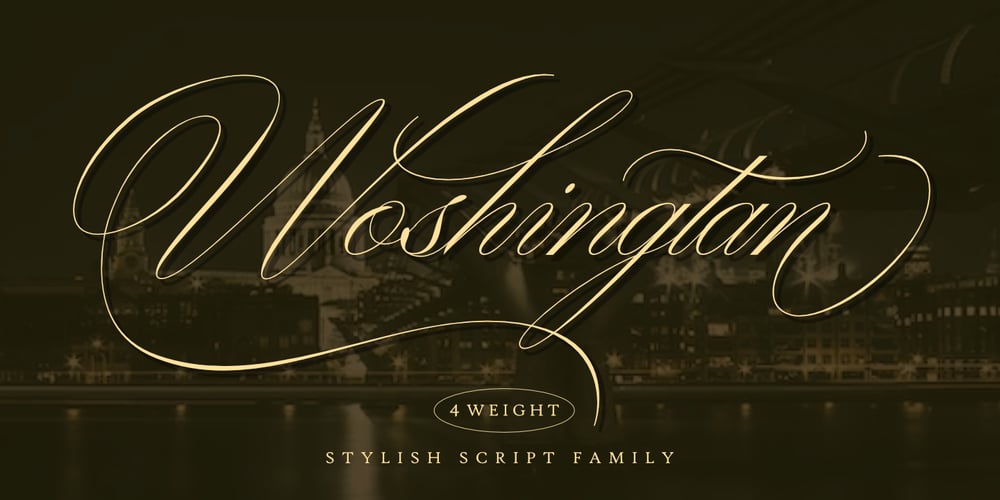
Woshingtan Font Family was designed by Saiful Anwar and published by Sealoung. Woshingtan contains 4 styles and family package options. Have you ever had a dream to write as a professional calligrapher? Penmanship or spencerian script? Now you have this unique opportunity to try the early American handwriting. Introducing Washington calligraphy scrpt. This font is calligraphy font with a classic style and a touch of elegance, inspired by the handwriting of Italian women and ancient manuscripts. Carefully designed to work together in harmony that makes it very suitable for any design work that requires a classic, formal or luxurious.Try Desirable Calligraphy, enjoy the richness of OpenType features and let her fun and elegant excitement make you happy and enhance your creativity! You can use this font very easily.